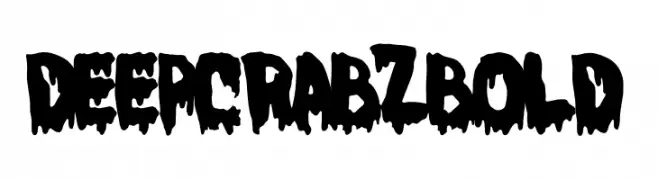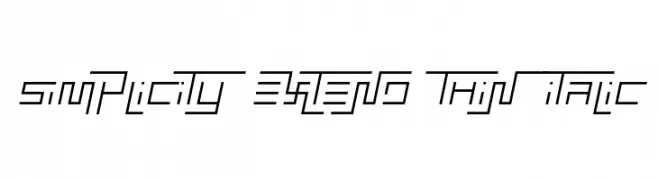
A futuristic, geometric font with thin, angular strokes and an italic slant.
A bold, dripping font with a liquid-like, dramatic style.
A creative font with characters resembling tangled wires, offering a unique and artistic look.
A playful and elegant handwritten script font with fluid, connected letters.
A modern, geometric font with bold lines and rounded edges, perfect for creative projects.
A retro, pixelated font with a blocky, geometric design.
A playful, rounded font with bold, smooth curves and a modern look.
A bold, oblique font with a dynamic and modern style.
A playful and elegant handwritten script font with medium contrast.
A modern, dotted font with a digital and futuristic appearance.